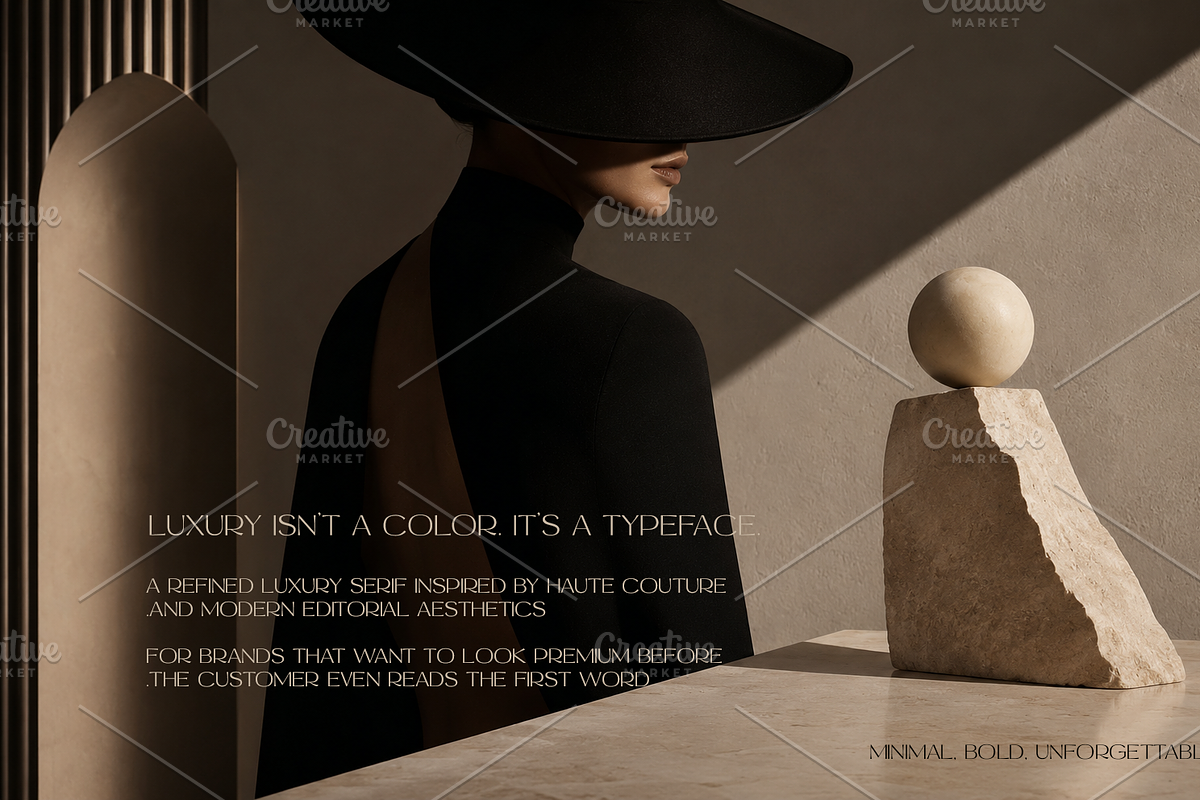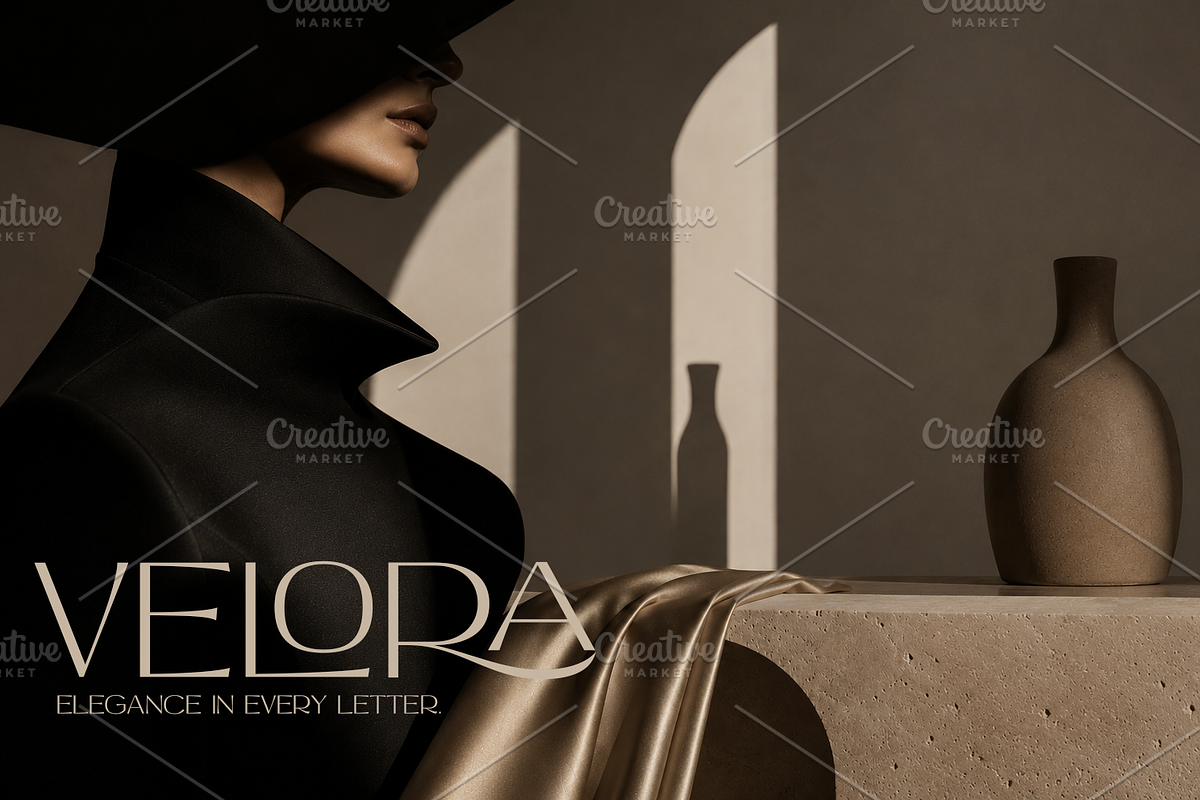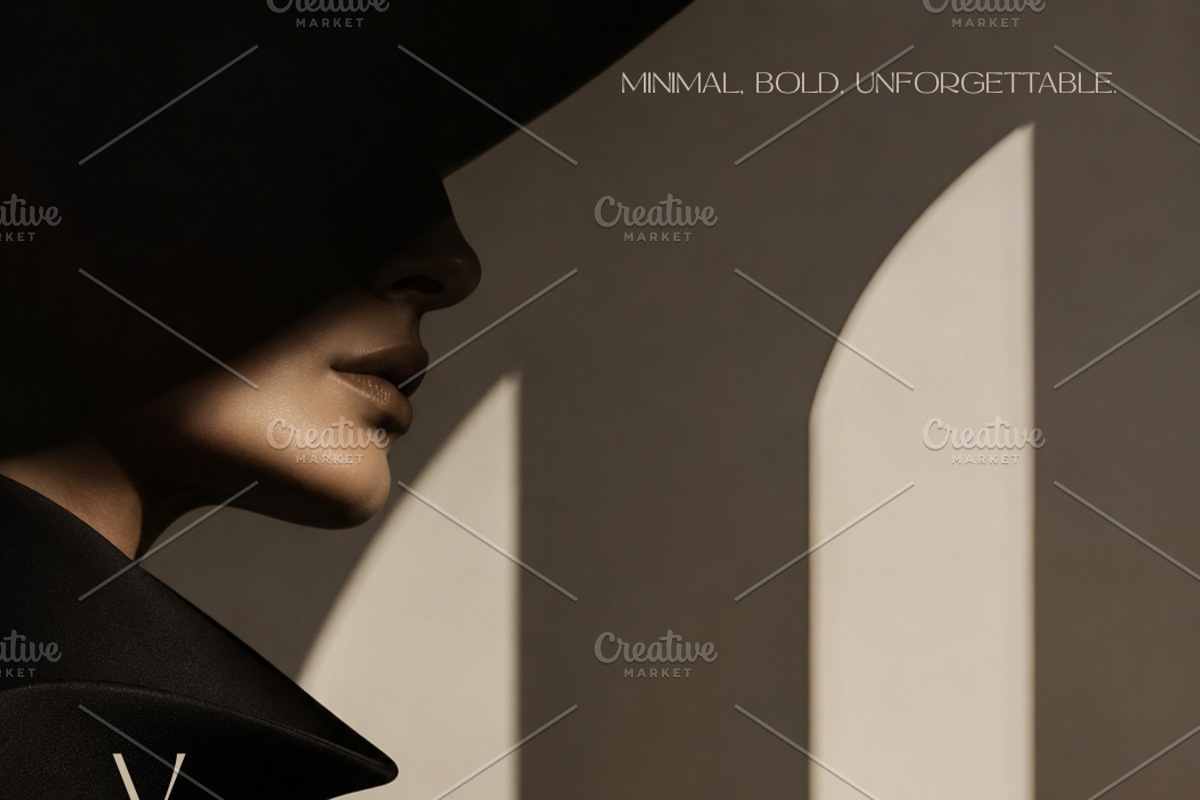
Some fonts are made for writing. This one is made for making an impression.
From the very first letter, it brings the atmosphere of luxury fashion houses, high-end editorials, and timeless sophistication.
A typeface that blends:
The elegance of editorial design
The boldness of luxury branding
And the clarity of modern minimalism
Every curve is intentional. Every white space is refined. Every word set in this font feels elevated — as if it belongs to a premium brand.
This is not just a font. It’s a visual identity that transforms ordinary designs into elegant statements worth noticing.
Designed for brands that refuse to look cheaper than their value.
Fashion brands
Jewelry and beauty products
Perfume packaging
Luxury logos
Editorial magazines
Premium social media campaigns